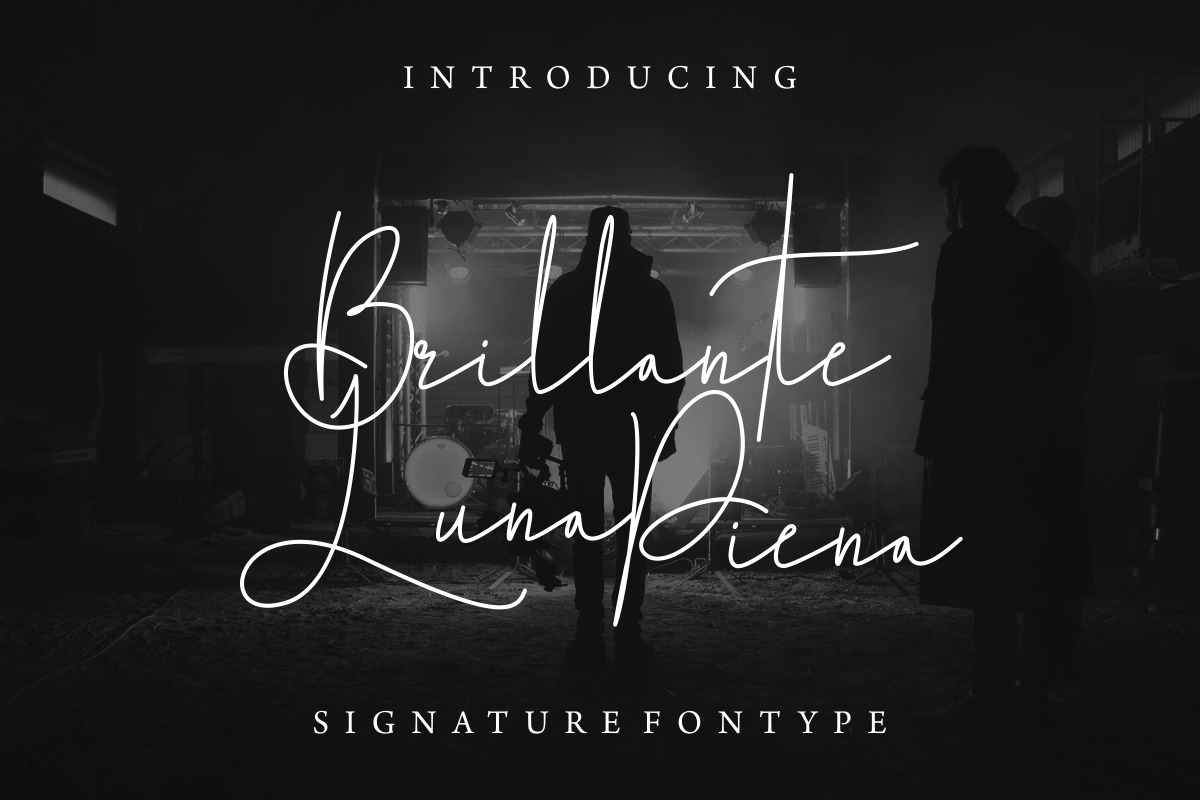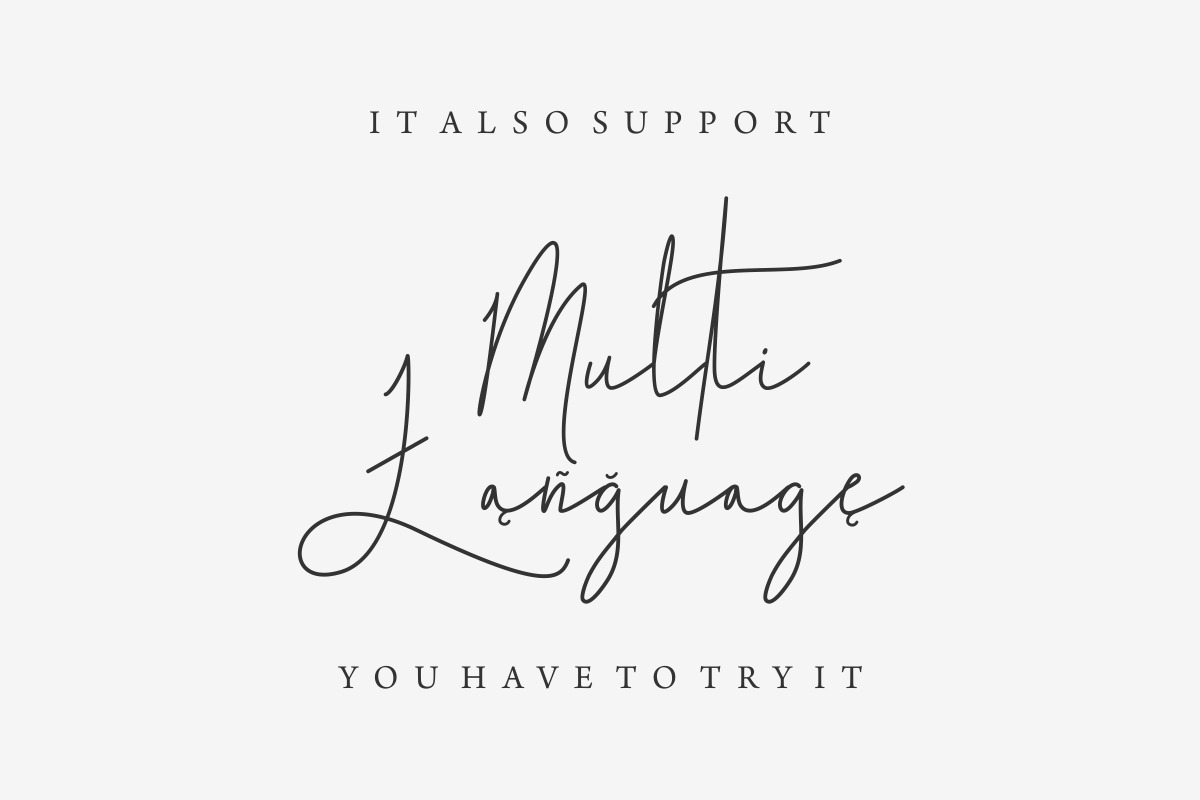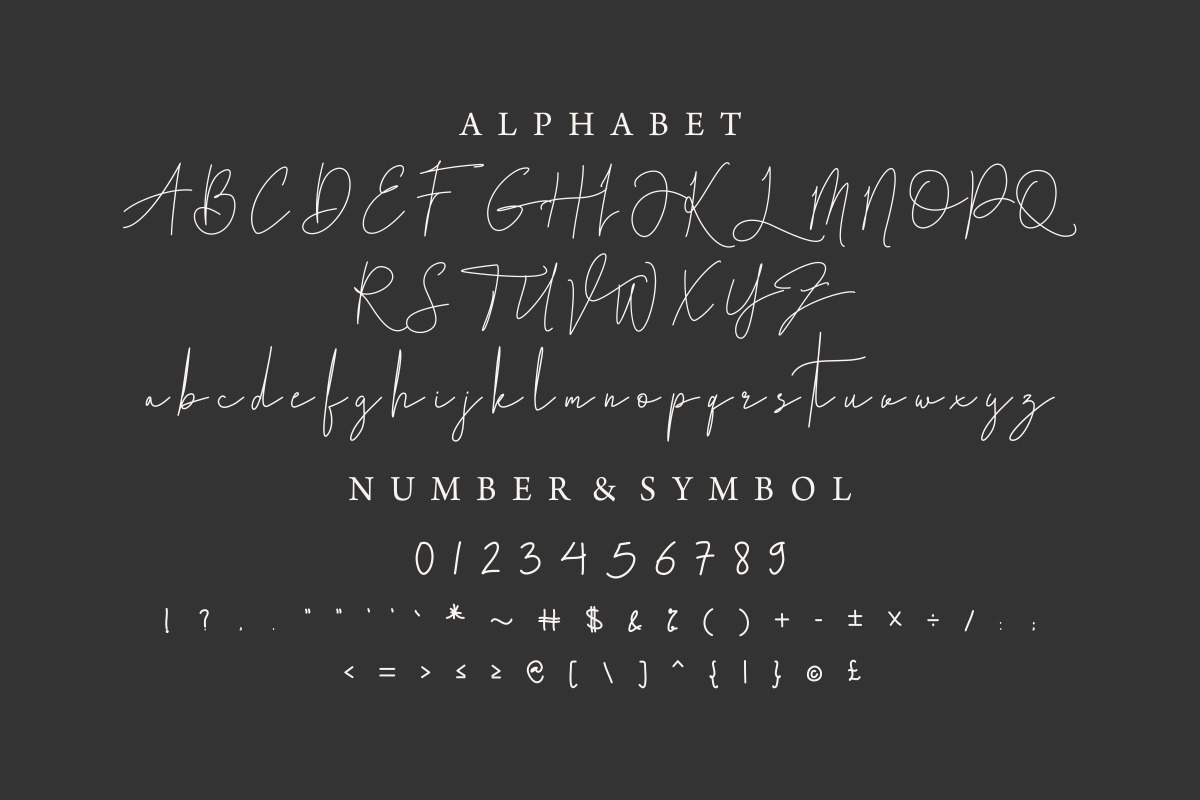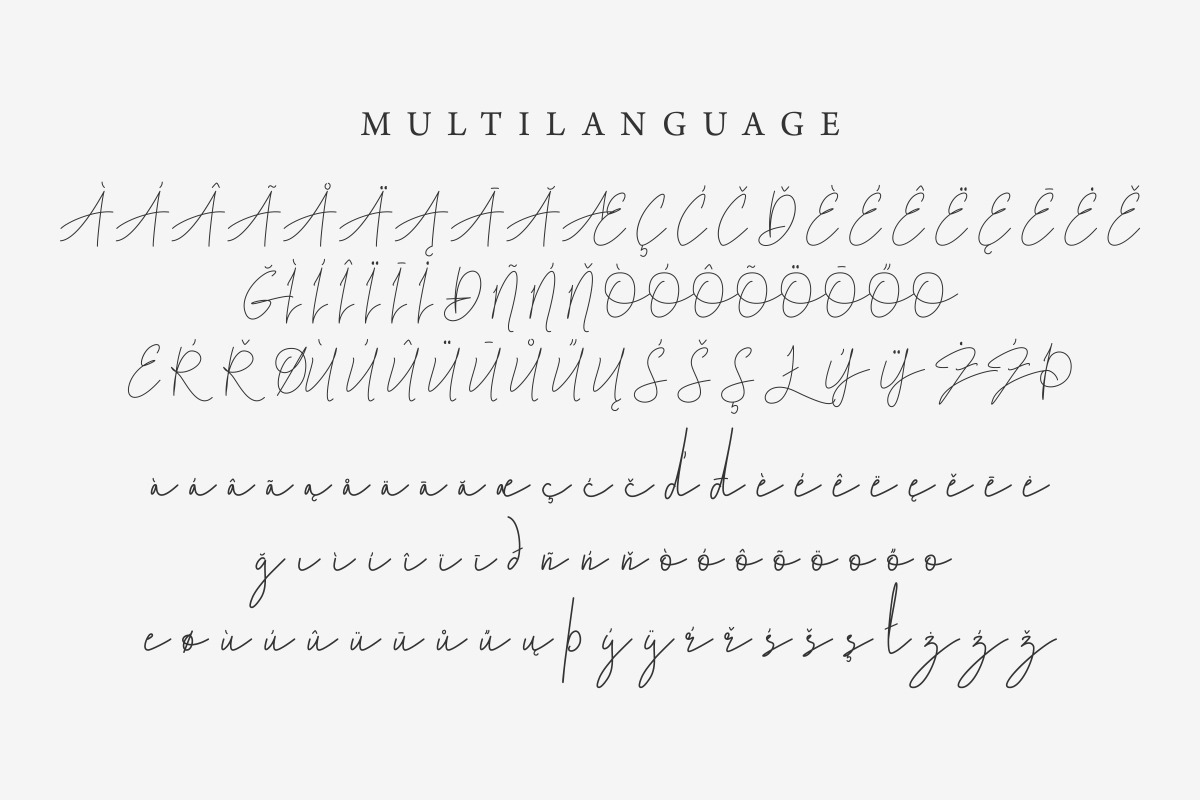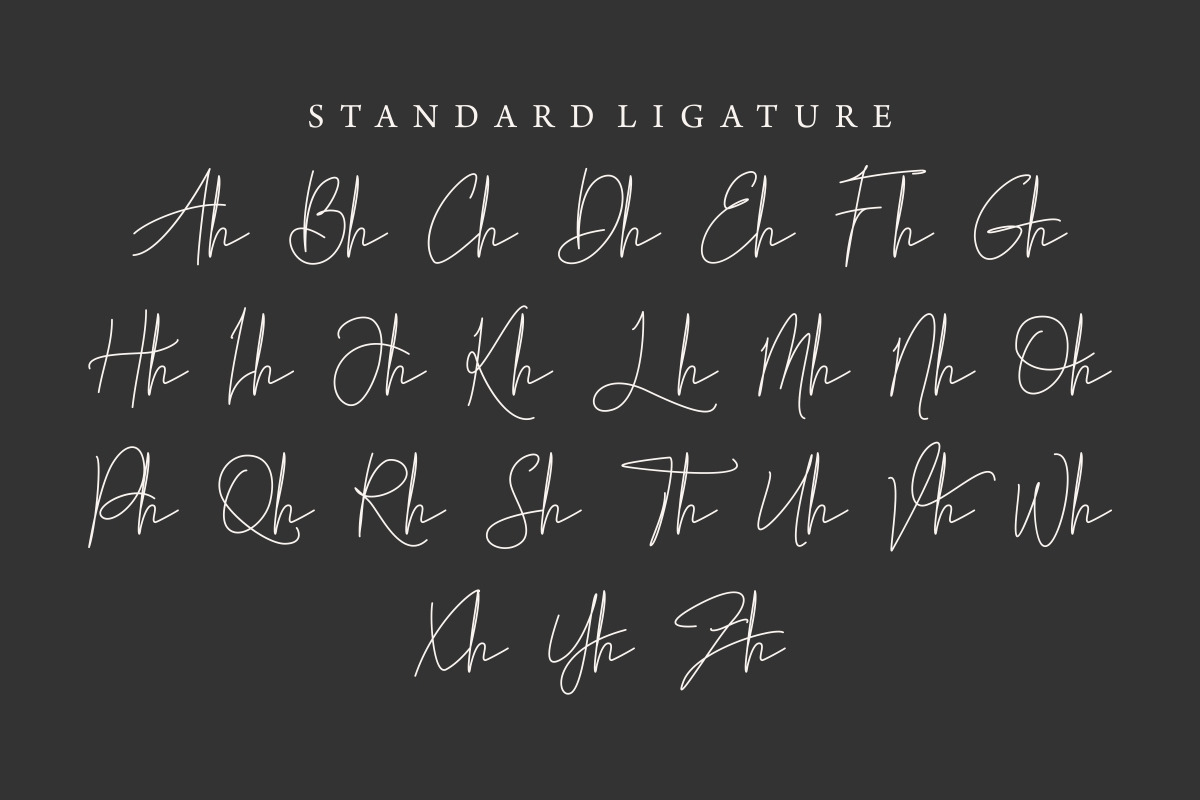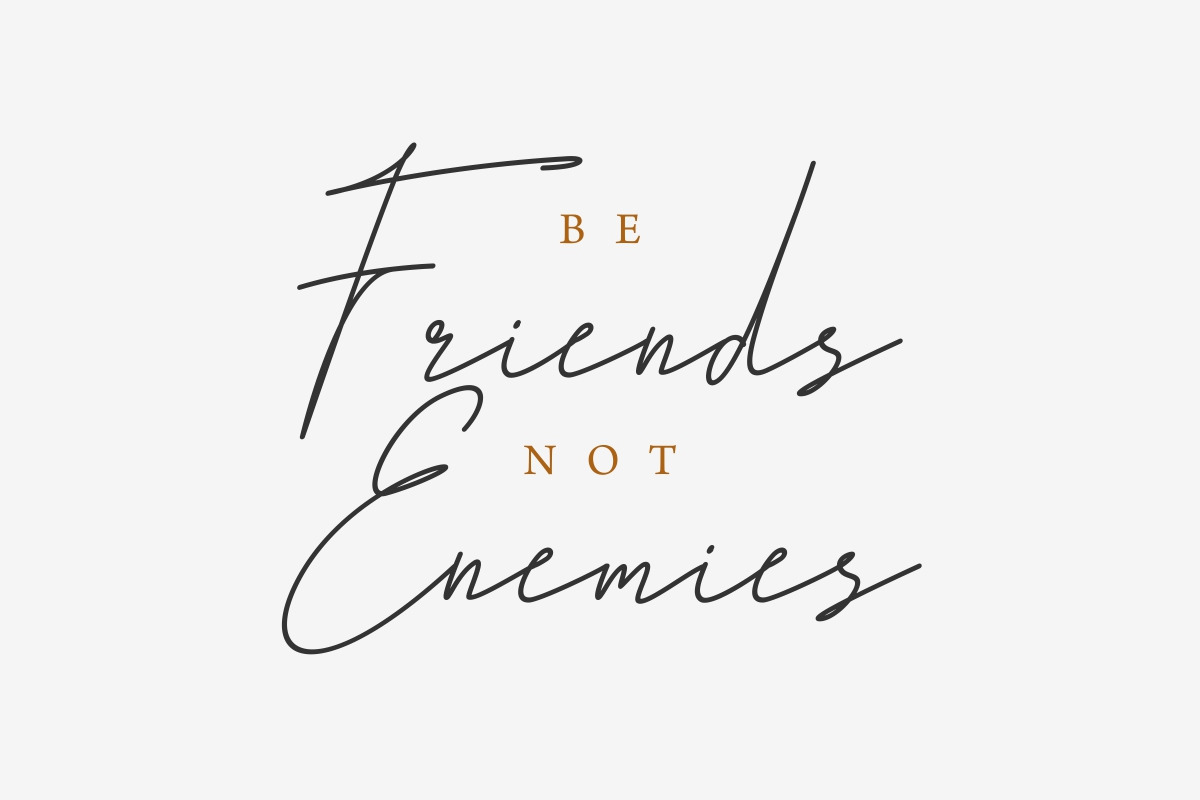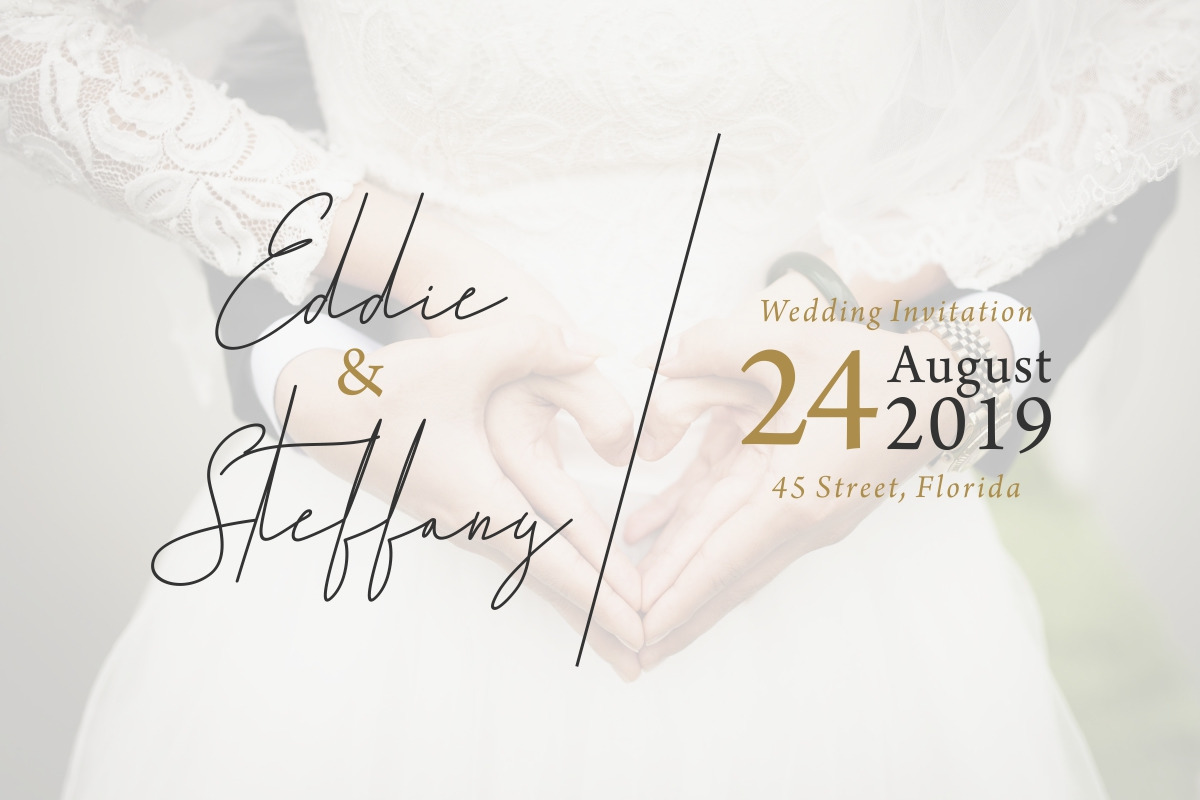
Brillante Luna Piena Signature Font
Good Morning Good people! Please meet our newest font : Brillante Luna Piena ! This is a new modern script handwriting signature style font. It has a fresh, elegant, natural and stylish glyph.
This is a sophisticated styling font which will be perfect for branding, logo, photography, personal branding, label, cover etc. It is so elegant, classy and beautiful.